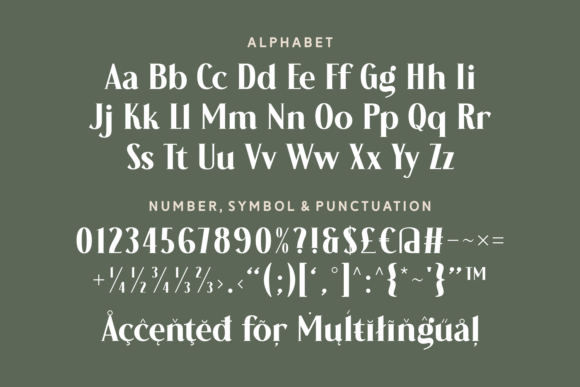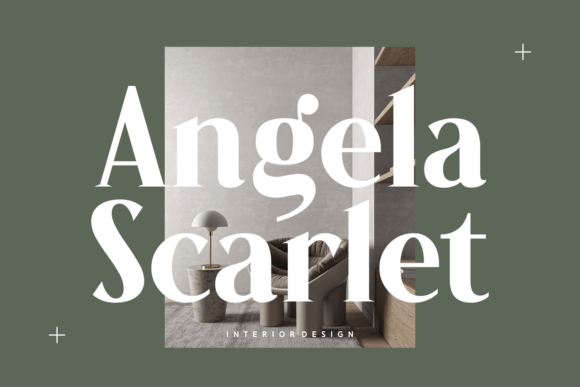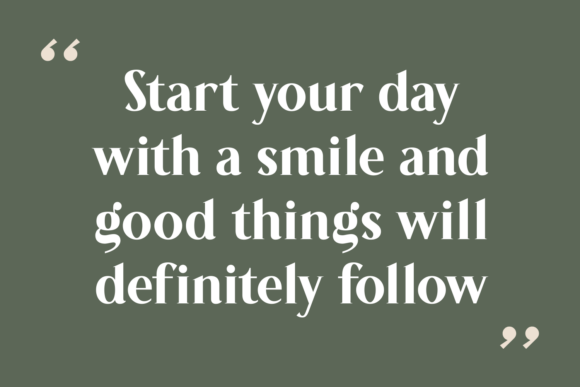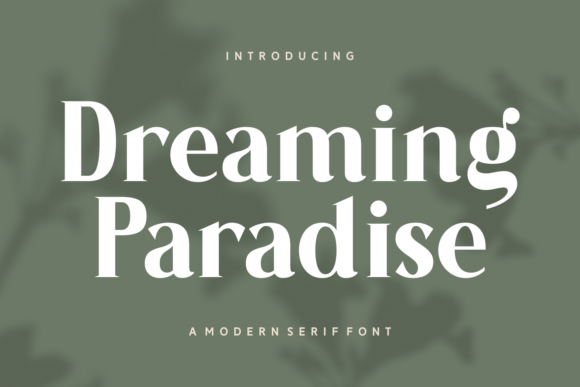
Dreaming Paradise Font: Elevate Your Design with Elegance and Sophistication
In the world of typography, a font can make or break the aesthetic of a design project. For designers and crafters seeking a modern yet elegant touch, the Dreaming Paradise font stands out as a beacon of sophistication. This modern serif font seamlessly blends clean structures with artistic flair, making it an ideal choice for a wide range of applications, from branding and editorial design to lifestyle blogs and marketing visuals.
The Essence of Dreaming Paradise Font
Dreaming Paradise is not just a font; it’s an experience. Its soft elegance and subtle details bring a level of refinement that can elevate any design project. The font’s modern serif design ensures that it remains versatile, fitting for both digital and print media. Whether you’re working on a luxury brand’s visual identity, a fashion editorial, or a lifestyle blog, Dreaming Paradise offers the perfect blend of contemporary appeal and classic sophistication.
Key Features of Dreaming Paradise Font
- Modern Serif Design: Offers a fresh take on traditional serif fonts, making it perfect for projects that demand a modern aesthetic.
- Clean Structure: Provides clarity and readability, ensuring that your message is conveyed effectively.
- Artistic Flair: Adds a unique touch to your designs, setting them apart from the ordinary.
- Soft Elegance: Brings a subtle sophistication that can enhance the visual appeal of any project.
- Subtle Details: Offers depth and character, making your designs more engaging and memorable.
Applications of Dreaming Paradise Font
The versatility of Dreaming Paradise font makes it suitable for a variety of design projects. Here are some of the key areas where this font can make a significant impact:
- Branding: Create a lasting impression with a font that exudes elegance and sophistication. Dreaming Paradise can help establish a brand’s identity as refined and luxury-oriented.
- Editorial Design: Whether it’s a magazine, a book, or an online publication, this font adds a touch of class and readability, enhancing the reader’s experience.
- Lifestyle Blogs: For bloggers focusing on fashion, beauty, or luxury lifestyle, Dreaming Paradise offers a visually appealing way to present content and attract a discerning audience.
- Marketing Visuals: From brochures to digital ads, this font can elevate marketing materials, making them more engaging and effective.
Why Choose Dreaming Paradise Font?
In a sea of fonts, Dreaming Paradise stands out for several reasons:
- Uniqueness: It offers a unique blend of modernity and elegance, making it a standout choice for designers.
- Versatility: Its adaptability across various design projects and mediums makes it a valuable addition to any designer’s toolkit.
- Emotional Connection: The font’s aesthetic can evoke a sense of luxury, sophistication, and refinement, helping designers create an emotional connection with their audience.
Dreaming Paradise font is more than just a typographical choice; it’s a design statement. It speaks of elegance, sophistication, and a keen eye for detail. For designers and crafters looking to elevate their projects and make a lasting impression, Dreaming Paradise offers the perfect blend of modern appeal and timeless elegance. Whether you’re aiming to create a brand identity, design an editorial piece, or craft compelling marketing visuals, this font is sure to enhance your creative output and engage your audience on a deeper level.
Embrace the beauty of Dreaming Paradise font in your next design project and discover how it can transform your creative vision into a captivating visual experience.